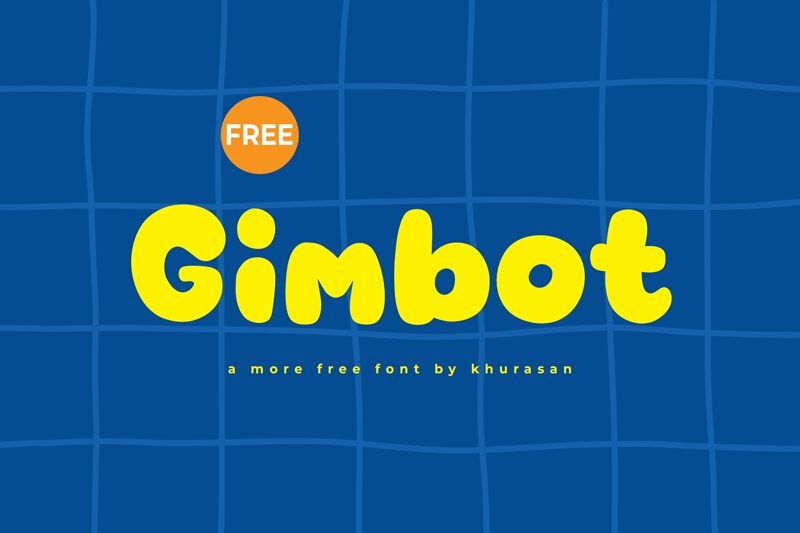
Gimbot font family by Khurasan consists of 2 font styles. This is a free cartoon display font family that is bubbly, rounded, soft, friendly, and inviting. It has a modern, casual, informal, and approachable overall look. Corners are rounded, a usual characteristic of this style of fonts. It is a lowercase font with the option for all caps usage.
This lettering is perfect for posters, magazines, book covers, headlines, titles, quotes, social media posts, visual identities, branding, packaging, online & offline advertising, and more. Use it within printable and digital media and have your typography stand out.